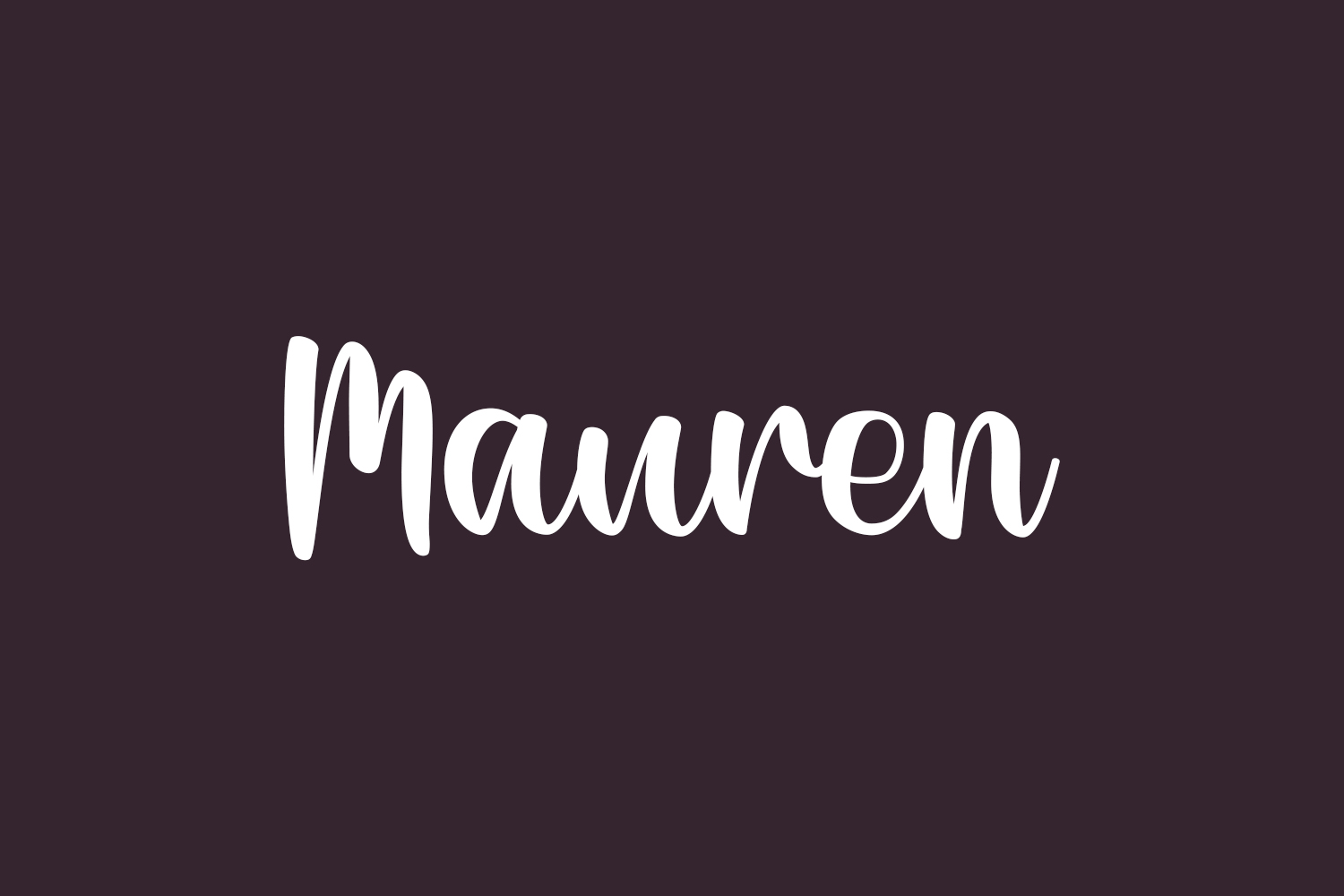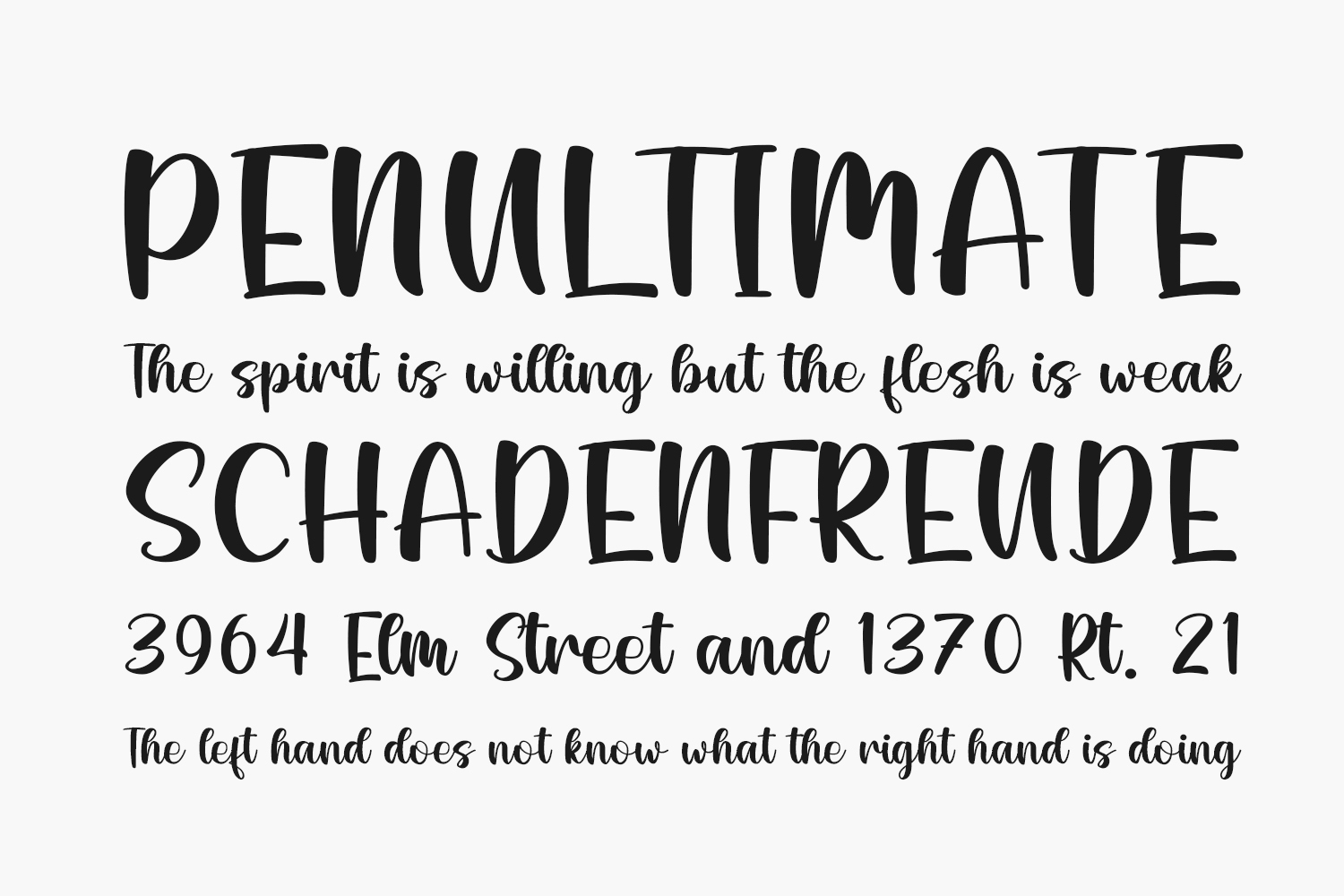
Mauren Free Font is a lovely and timeless handwritten font. It is the best choice for creating eye-catching logos, branding, and quotes. Download the font for free if you need it for personal use or purchase the full version for commercial use.